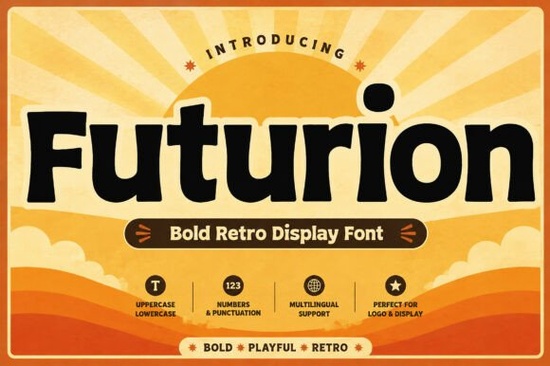
Branding and printing require typography that grabs attention without sacrificing readability. Many creators struggle to find a typeface that balances nostalgia with professionalism. That is why Futurion Font has become a popular choice for people who need distinct visuals. Its chunky letterforms bring a playful yet confident feel to almost any layout.
If you have ever wanted to capture the essence of the 1970s while keeping things clean, this bold display option fits the bill. It allows users to inject personality into headers or titles while ensuring the message stays clear. Whether you are launching a new product line or designing a personal poster, having a versatile asset helps streamline your workflow.
Why Retro Typography Still Works in 2024
Design trends often cycle, and vintage aesthetics are currently enjoying a major resurgence. People connect with nostalgic imagery because it feels familiar yet exciting. Using a typeface inspired by past eras can make a project stand out among competitors using standard sans-serifs. The key is finding the right balance between readability and style.
Some creators worry that older styles feel dated. However, when combined with modern spacing and color palettes, these fonts look intentional. For example, if you enjoy curvy shapes but want something unique, you might also explore options like soft floral typography to complement the bolder lines. The contrast between structured blocks and organic shapes creates visual interest.
This approach works well for small businesses wanting to show they value creativity. It signals that the brand understands current cultural moments without trying too hard. The thick strokes used in this typeface provide a solid foundation for layouts that need to hold up under scrutiny.
Ideas for Specific Projects
The utility of a display font lies in how many places you can apply it. Because it supports both uppercase and lowercase, along with numbers and punctuation, the possibilities are wide. Below are some common applications where this style shines:
- T-Shirt Designs: The large letters look great on apparel. They read easily from a distance, which is crucial for merchandise.
- Packaging: Food boxes, cosmetic jars, and label designs benefit from the bold impact.
- Social Media Graphics: Posts on Instagram or Pinterest often rely on strong text overlays to stop the scroll.
- Book Covers: Titles need to pop off the shelf or screen. A retro headline adds immediate character.
When designing stickers or decals, the weight of the letters helps the image remain visible even when scaled down. You do not need to worry about thin lines disappearing. For projects requiring softer edges, you could consider mixing styles, such as checking out elegant decorative scripts for body copy while keeping the headlines strong.
Technical Features That Matter
For those who prefer a different structural look, comparing this against robust industrial typefaces can help define the right mood for your brand identity. Sometimes the difference lies in the angle of the terminals or the consistency of the stroke width.
Pairing With Other Fonts
A good typographic pairing enhances the main headline. If Futurion serves as the hero text, a neutral background font prevents the design from feeling cluttered. You want the headline to do the talking without competing with the supporting text. For a fun, lighthearted combination, exploring rounded geometric options can maintain the playful vibe while offering clarity.
In children’s products, the whimsical nature of the design aligns well with bright colors. You might pair it with illustrations rather than photos to create a cohesive narrative. The rounded edges soften the overall look, making it accessible to younger audiences.
If you are creating something fantastical or magical, you might look for accents like fantasy-inspired embellishments. Combining sharp, bold heads with delicate details creates depth in the composition. Always test your text in black and white first to ensure the shape holds up without relying on color.